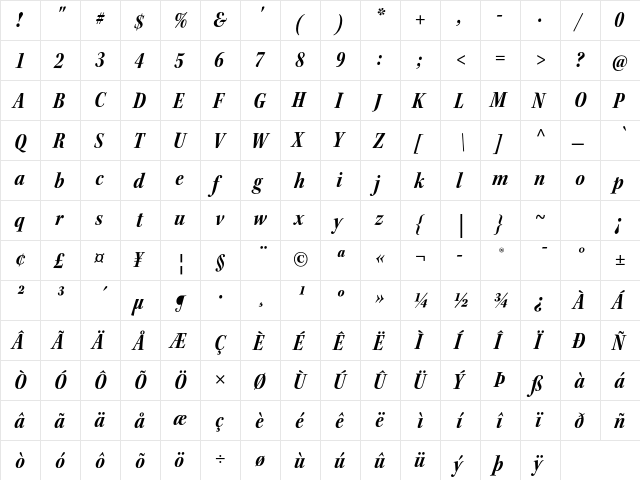
Kepler Std Bold Condensed Italic Subhead Font Preview
| Designer | Robert Slimbach |
Design Context for Kepler Std Typeface
Kepler Std takes a measured approach to typography — its balanced proportions and neutral character make it a reliable workhorse for both digital and print work. The slanted form adds forward momentum and visual energy. The heavy weight commands attention and anchors typographic hierarchies. The condensed width makes it efficient for tight spaces without sacrificing legibility.
Pro Tip: Use Kepler Std for emphasis, pull quotes, and subheadings where its slanted energy can add rhythm to the layout.